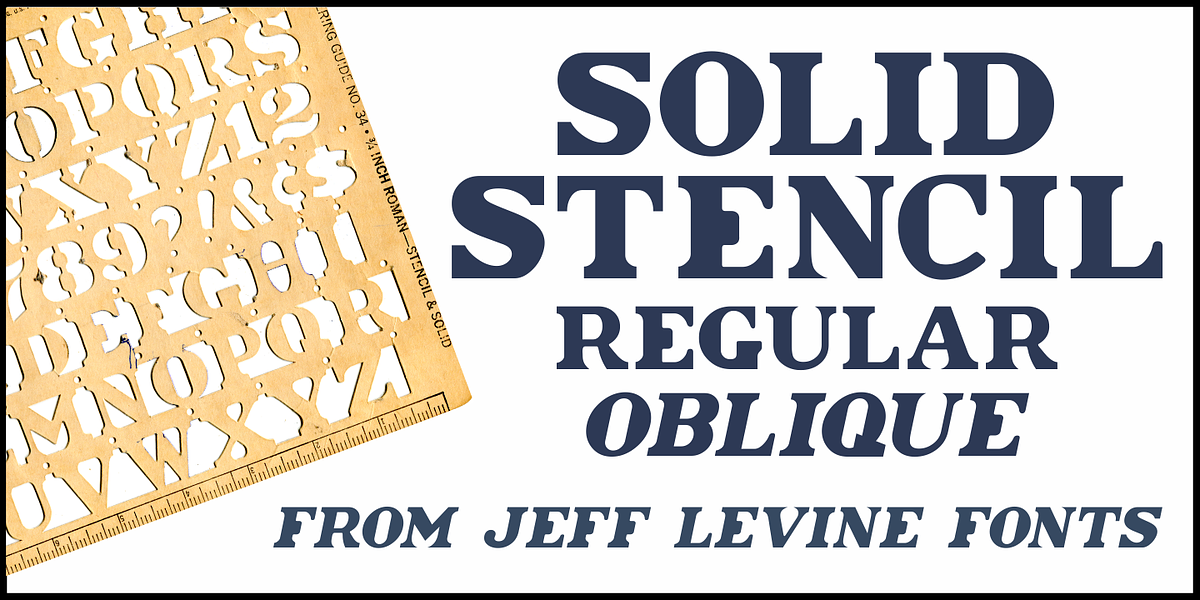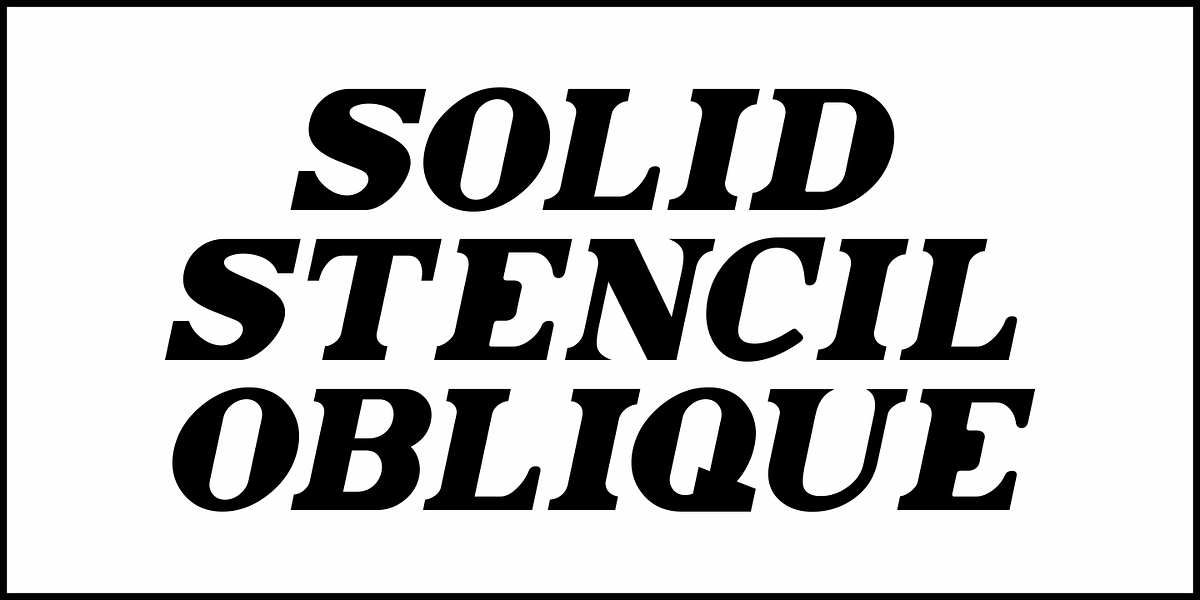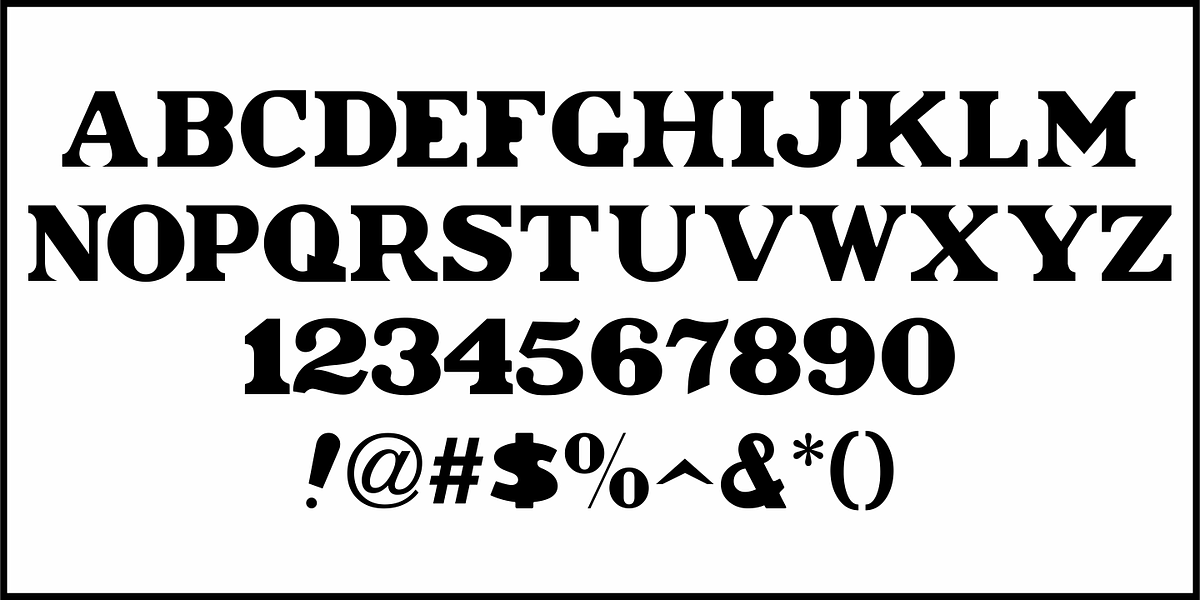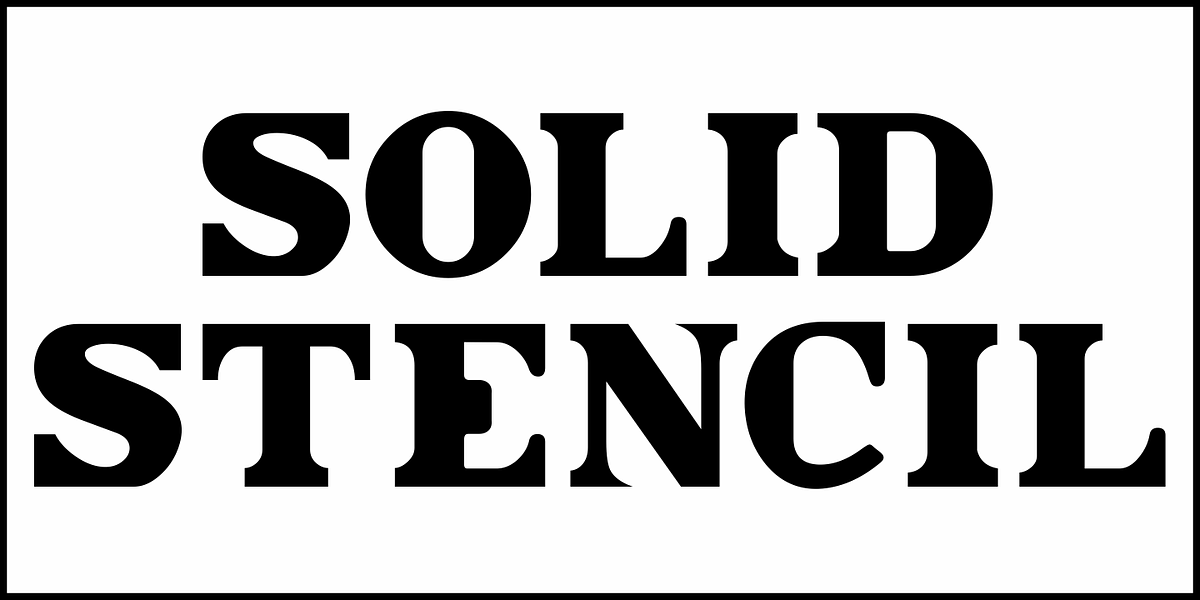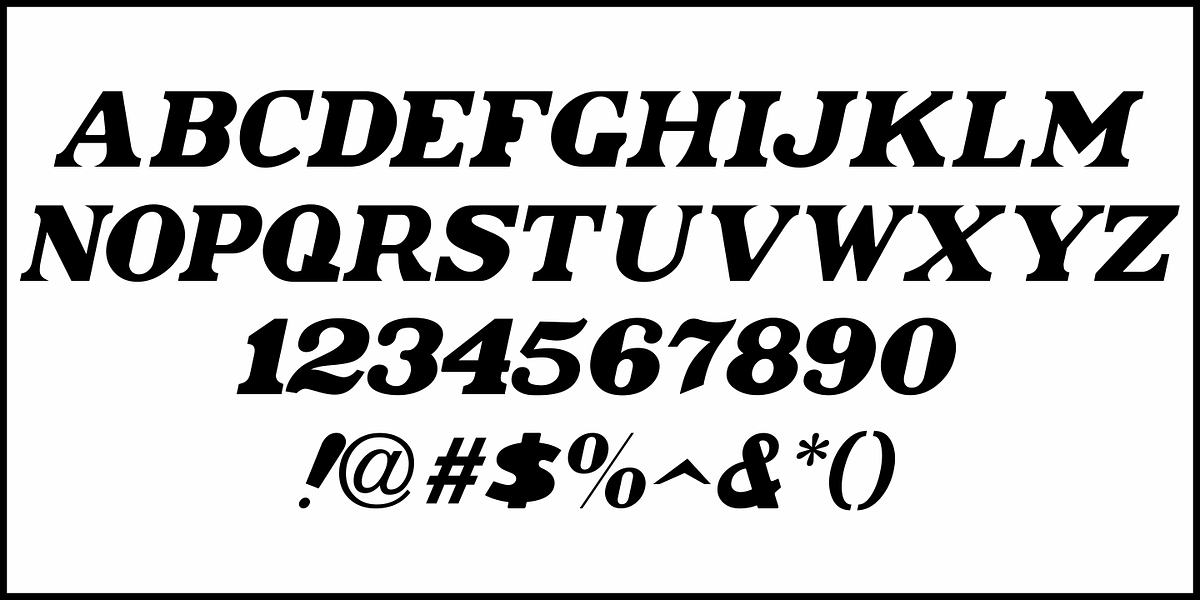
Solid Stencil JNL
In 1962, the late Robert Libauer of the Stenso Lettering Company (of Baltimore, MD) revised two of his popular stencil lettering guides to offers users two choices: “traditional” stencil letters and numbers and ‘solid’ letters for tracing and coloring.
Solid Stencil JNL was modeled from one of those lettering guides, and contains all of the character anomalies found within that vintage stencil.